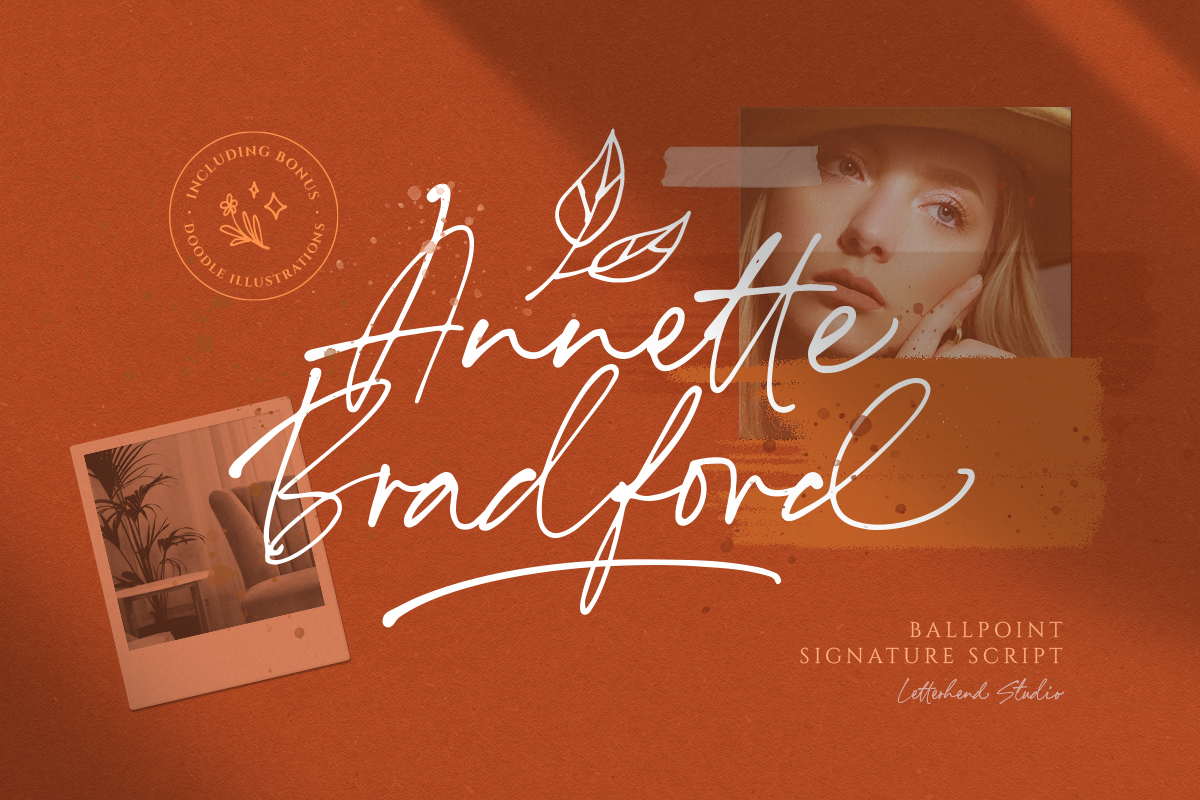
Annette Bradford Font
The Annette Bradford Font is perfect for prestigious law firms, luxury financial services, upscale consulting companies, exclusive private clubs, high-end real estate agencies, sophisticated business publications, elegant corporate stationery, and distinguished professional brands. This refined typeface brings established authority and sophisticated professionalism to any design project requiring institutional credibility and timeless elegance.
What makes the Annette Bradford Font so exciting is its masterful balance of traditional authority with contemporary sophistication that perfectly captures the essence of established professional excellence. The font features classic proportions with subtle modern refinements, creating letterforms that convey both heritage and forward-thinking leadership, making it ideal for organizations that command respect through decades of proven expertise.
The Annette Bradford Font family includes thin, light, regular, medium, bold, and black weights, each available in upright and italic styles, plus small caps and old-style numerals, providing designers with comprehensive typographic tools for creating distinguished professional brand systems and authoritative communications.
Establish distinguished presence with the Annette Bradford Font Free Download. This prestigious typeface has become the preferred choice among elite professional service firms, established institutions, and luxury brands who demand typography that reflects their distinguished reputation and professional authority. The font features extensive character support including multilingual capabilities, professional symbols, and institutional punctuation optimized for corporate excellence.
Whether you're developing brand identity for prestigious professional firms, creating materials for exclusive business organizations, or designing communications for luxury service providers, this font delivers unmatched authority. The carefully refined letterforms maintain perfect readability while radiating the established credibility and professional distinction that resonates with high-value clients who expect excellence and sophistication.
Professional brand strategists value the font's ability to communicate institutional authority and established expertise without appearing stuffy or outdated. The sophisticated design elements create immediate recognition of professional competence while helping prestigious brands maintain their distinguished reputation with discerning clients who value tradition, excellence, and proven results.
The Annette Bradford Font excels in applications where professional authority and institutional credibility are paramount, from legal documentation to luxury brand communications. The font's distinguished heritage makes it particularly effective for organizations that have earned their reputation through generations of professional excellence.